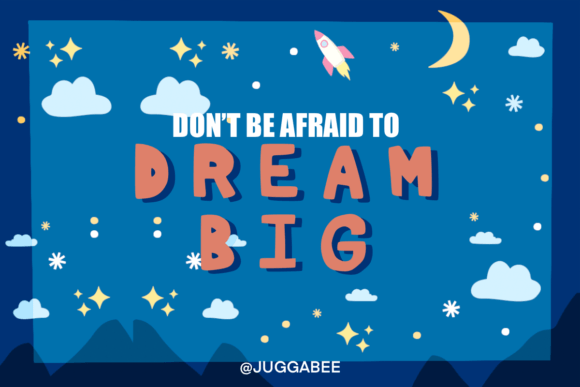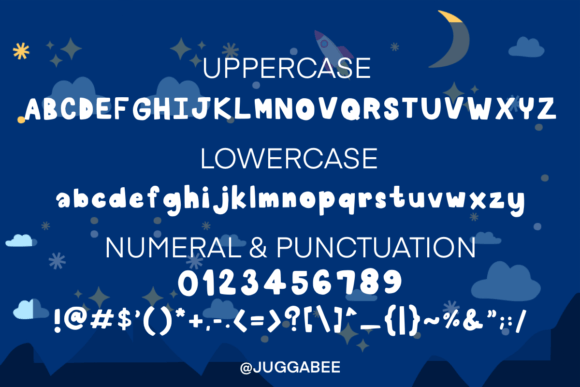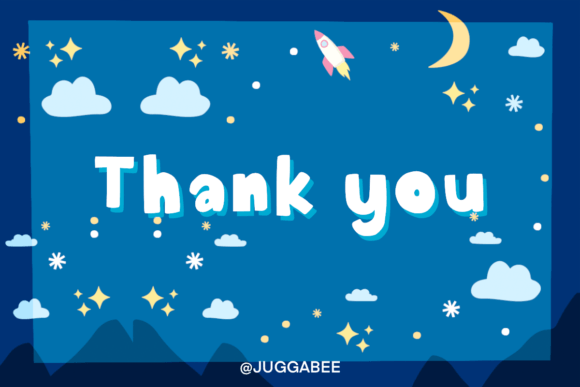
The Almond Font: A Sweet Addition to Your Design Toolbox
I’ll never forget the time I was working on a wedding invitation project, and my client asked for a font that was elegant, yet playful. I scoured the internet, trying out font after font, but nothing seemed quite right. That was until I stumbled upon the Almond font. This beautiful handwritten typeface has since become a staple in my design toolbox, and I’m excited to share it with you! 😊
An Honest Review of Almond Font
So, what makes Almond font so special? Let’s dive into the good stuff! ✨
- ✅ Unique and eye-catching: Almond font has a distinctive, hand-crafted feel that sets it apart from more traditional fonts.
- ✅ Versatile: This font can be used for a wide range of projects, from logos and branding to invitations and social media posts.
- ✅ Elegant and sophisticated: Despite its playful feel, Almond font has a level of sophistication that makes it perfect for more formal designs.
Of course, no font is perfect, and Almond font has a few small quirks to be aware of: 🤔
- ⚠️ Limited availability of certain characters: Some users have reported that certain characters, such as ligatures, are not available in the standard font.
- ⚠️ May not be suitable for very large or very small text: Almond font is best used at medium to large sizes, as it can become a bit blurry at smaller sizes.
The Story Behind Almond Font
Almond font was designed by a talented type designer who wanted to create a font that was both elegant and approachable. The designer drew inspiration from traditional handwriting styles, combined with modern digital techniques. The result is a font that’s both beautiful and versatile.
| Font Name | Almond Font |
| Author | Juggabee |
| What is Almond font best used for? | Almond font is great for adding a personal touch to your designs, such as logos, branding, invitations, stationery, and social media posts. |
| Is Almond font suitable for large or small text? | Almond font is best used at medium to large sizes. It may become blurry at smaller sizes. |